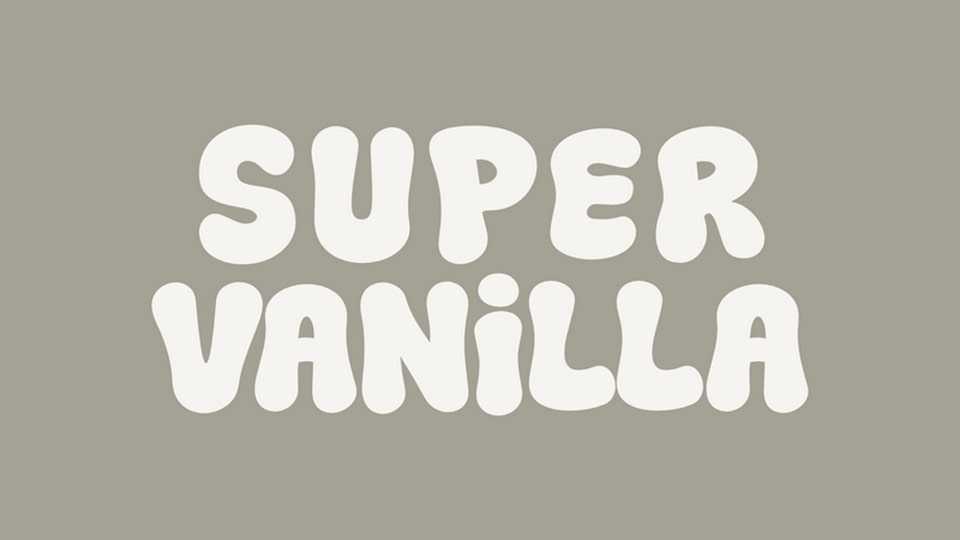
Download Super Vanilla font, a soft, bubbly display typeface that oozes sweetness and charm with its smooth, wavy curves and slightly irregular forms.